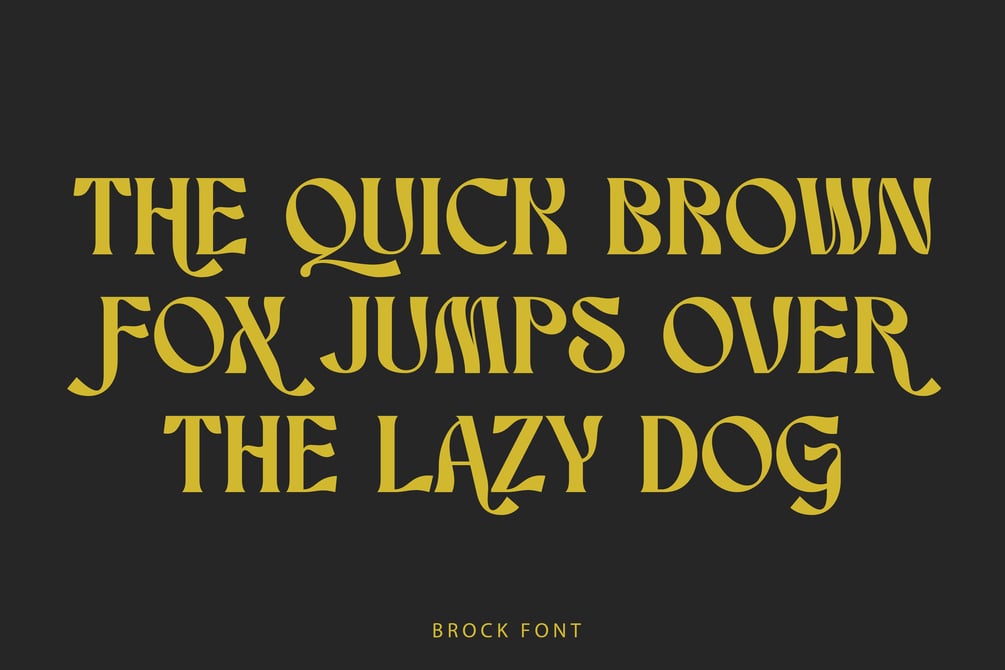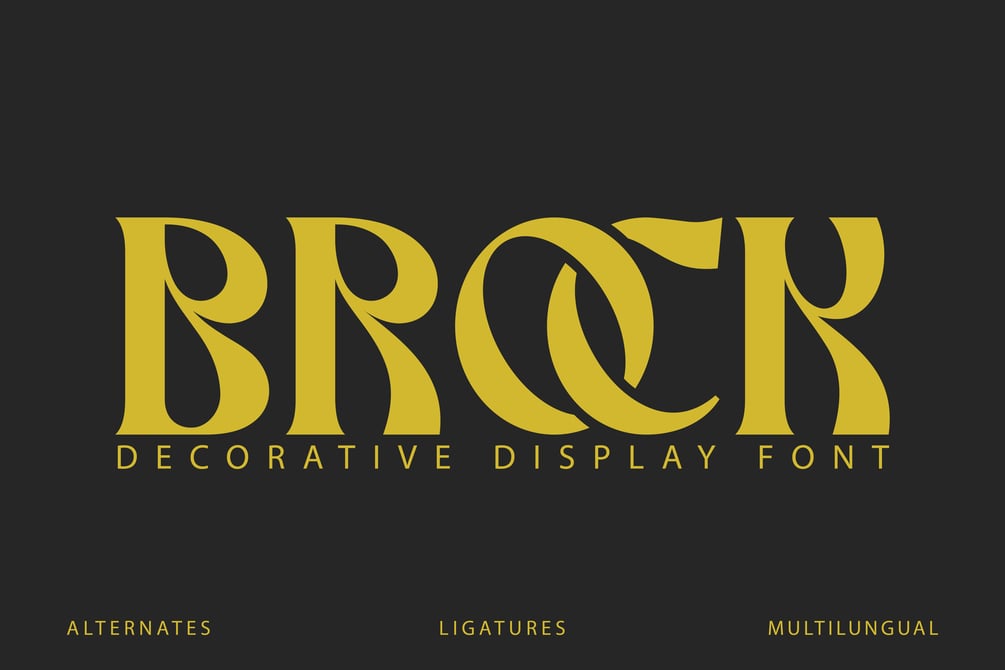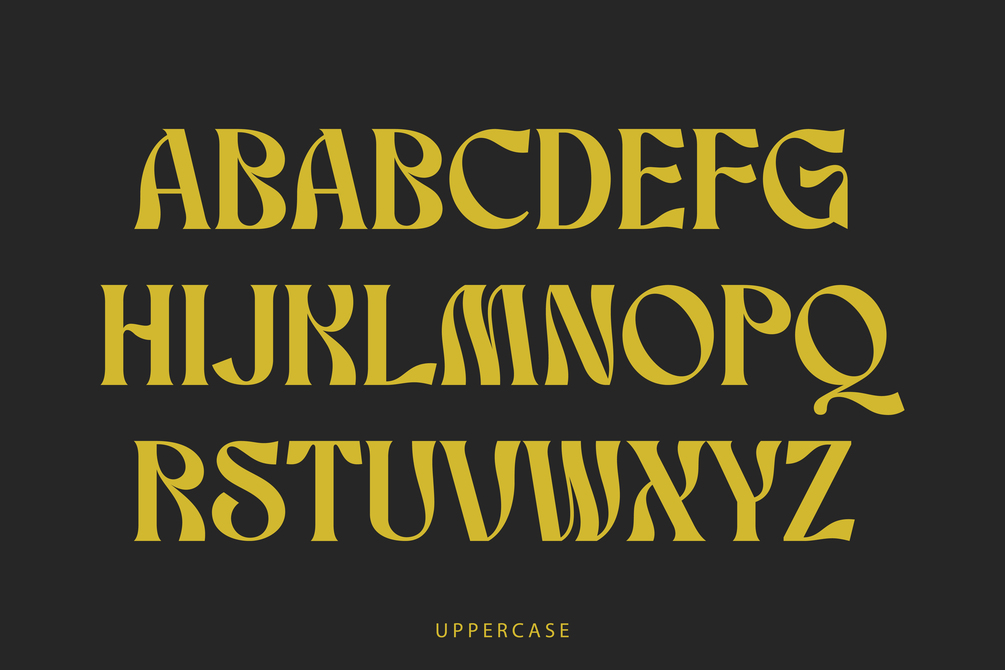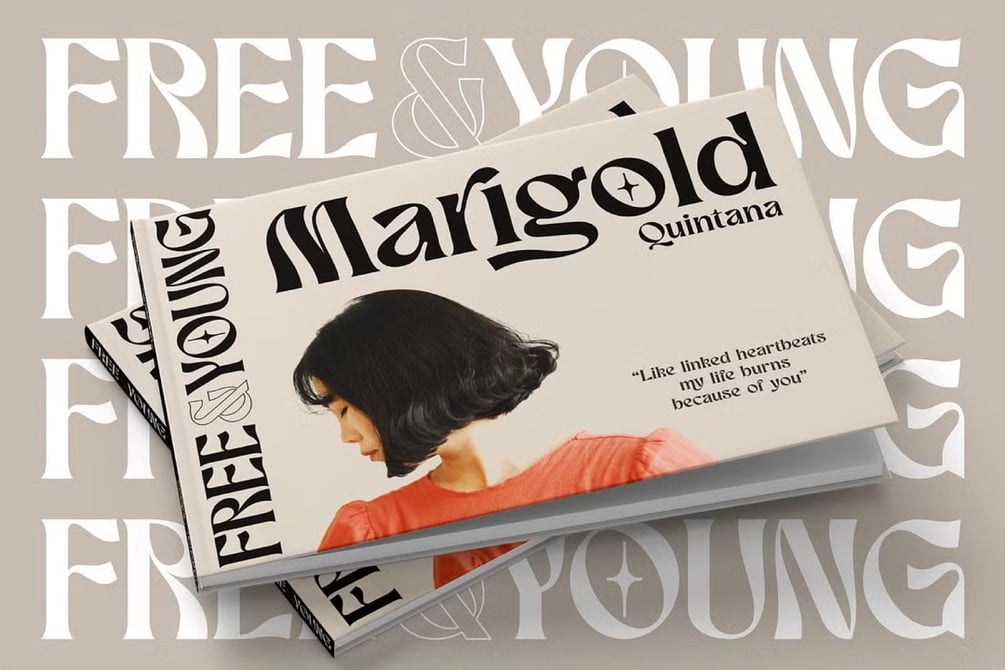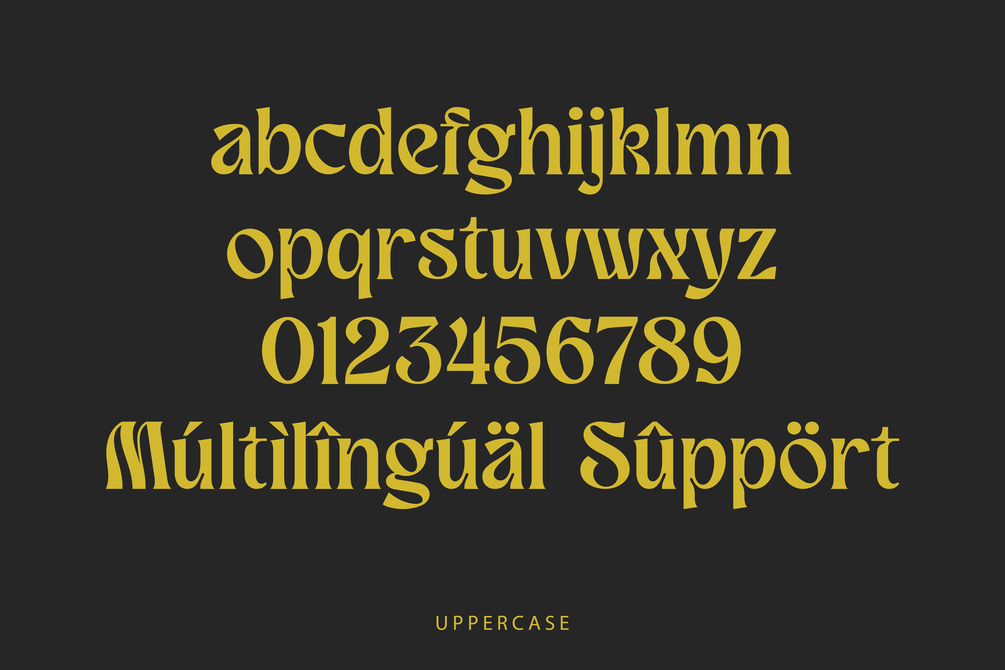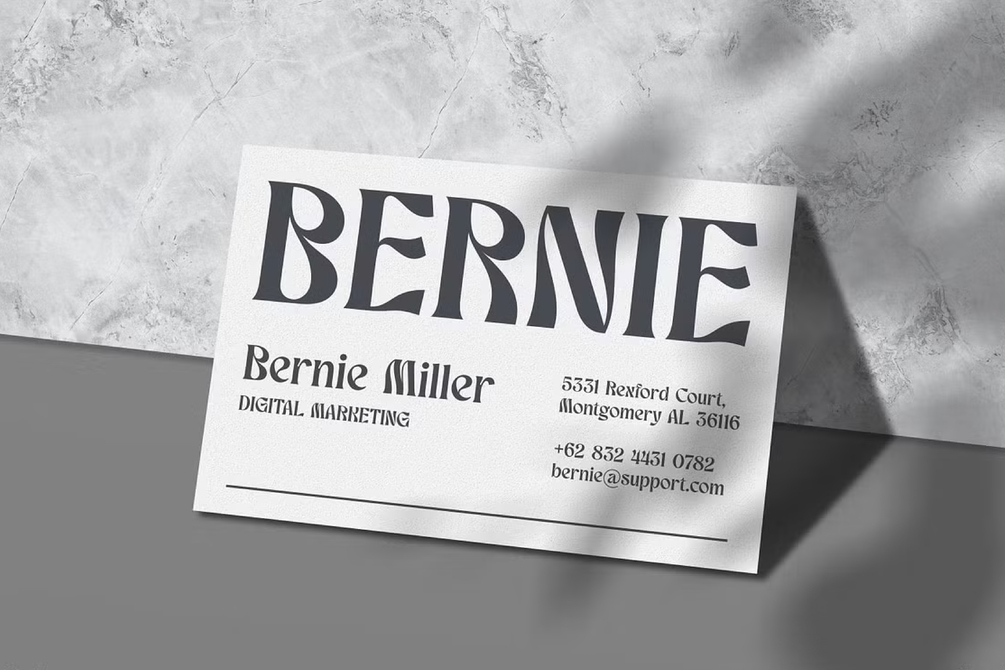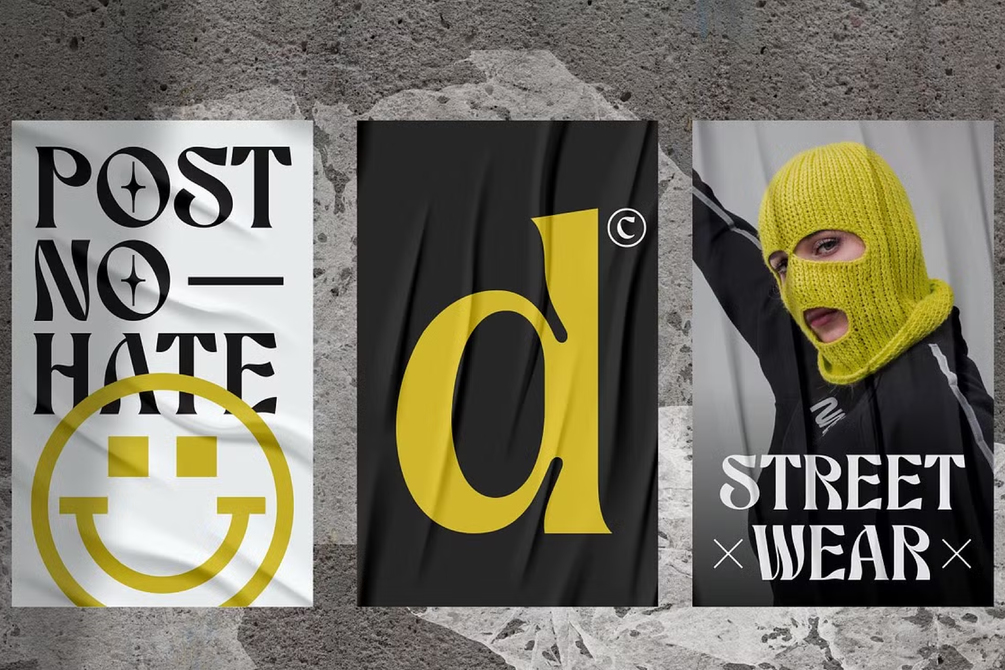
Brock - Stylish Display Font
Brock is a bold and sophisticated decorative display font that blends classic elegance with a modern artistic twist. Its sculptural letterforms and graceful curves evoke a sense of luxury and creativity, making it perfect for high-impact headlines, branding, and editorial designs. With its stylish alternates and refined ligatures, Brock adds a unique visual rhythm to any composition. The font also supports multilingual characters, ensuring versatility for global projects.